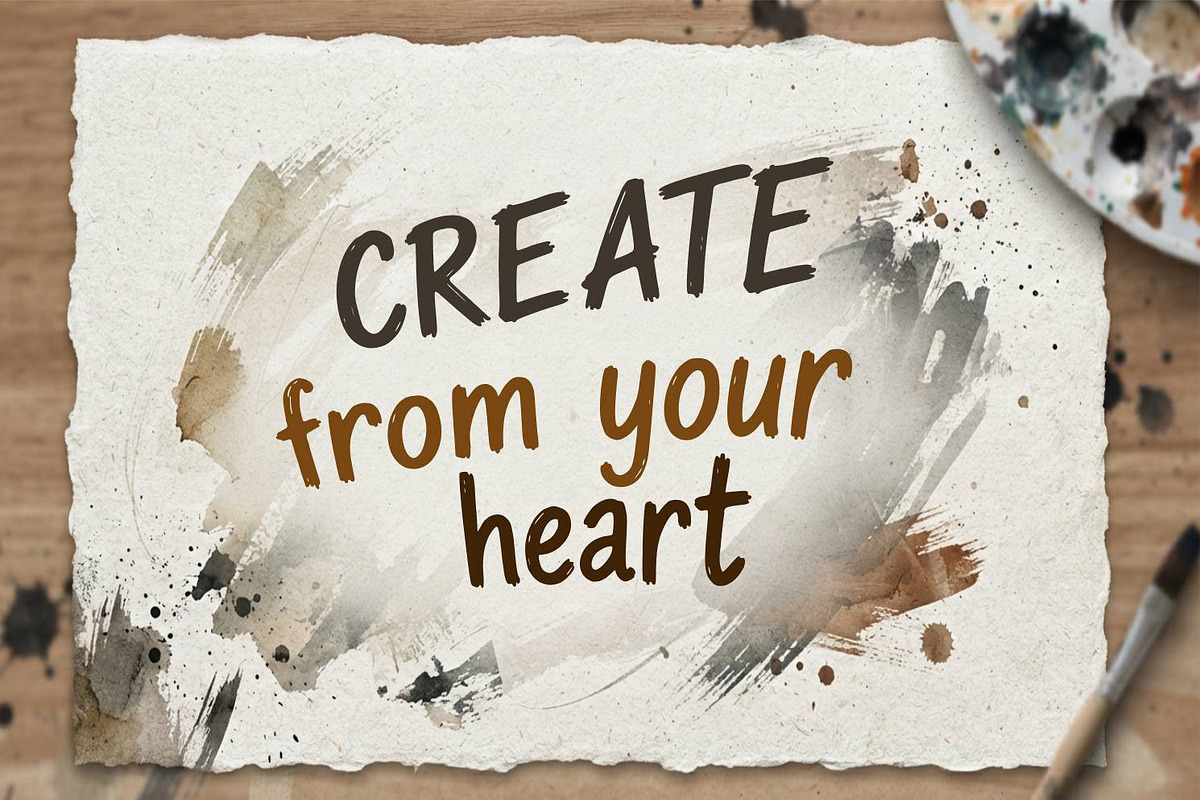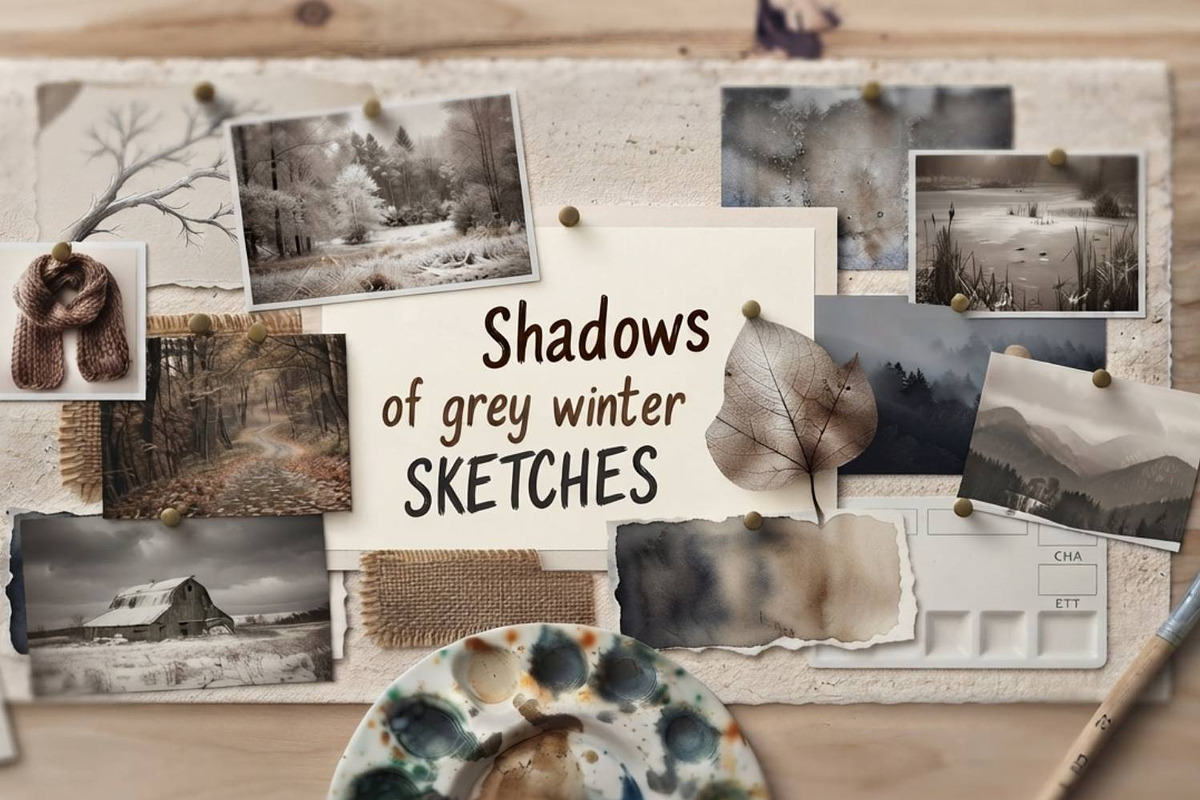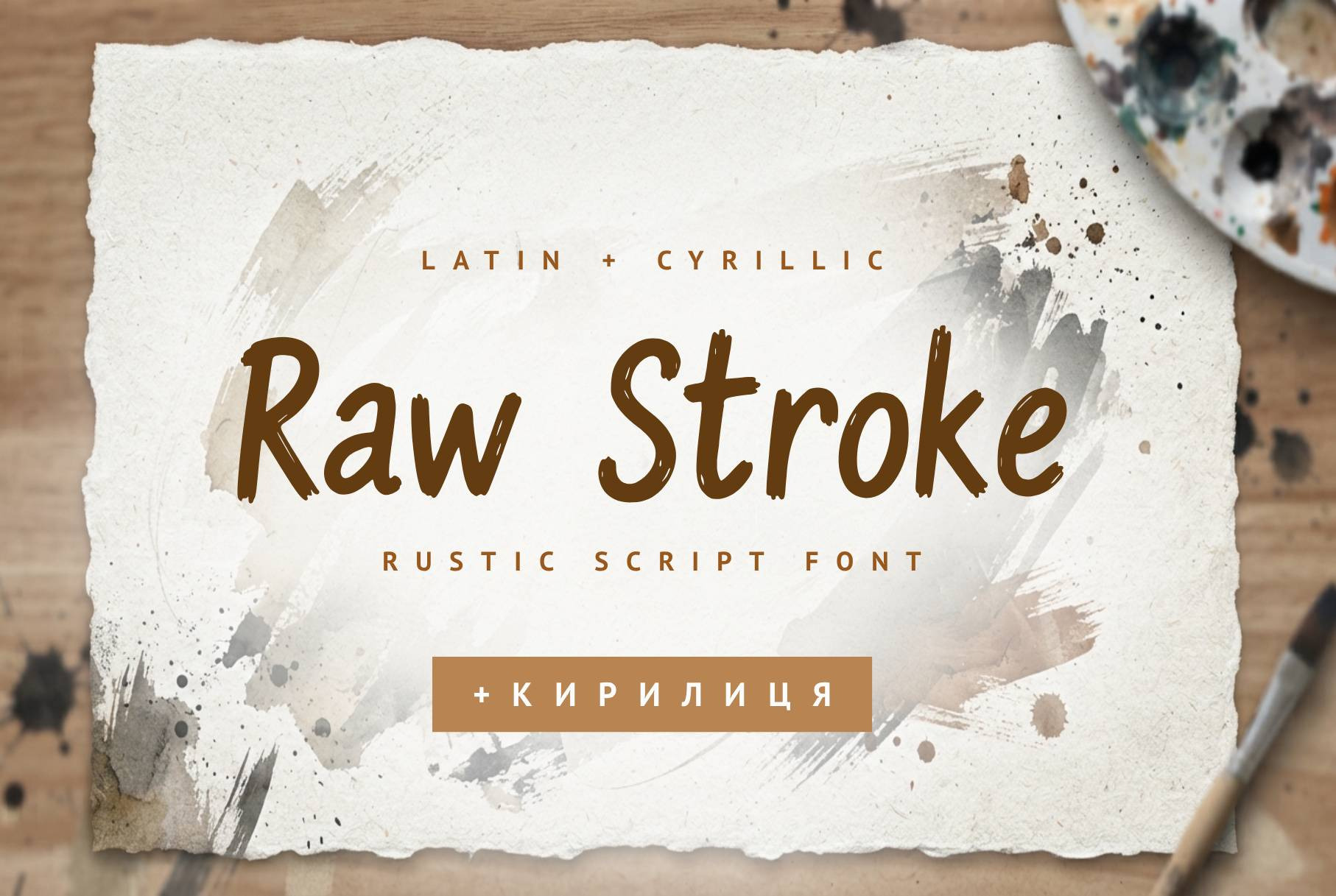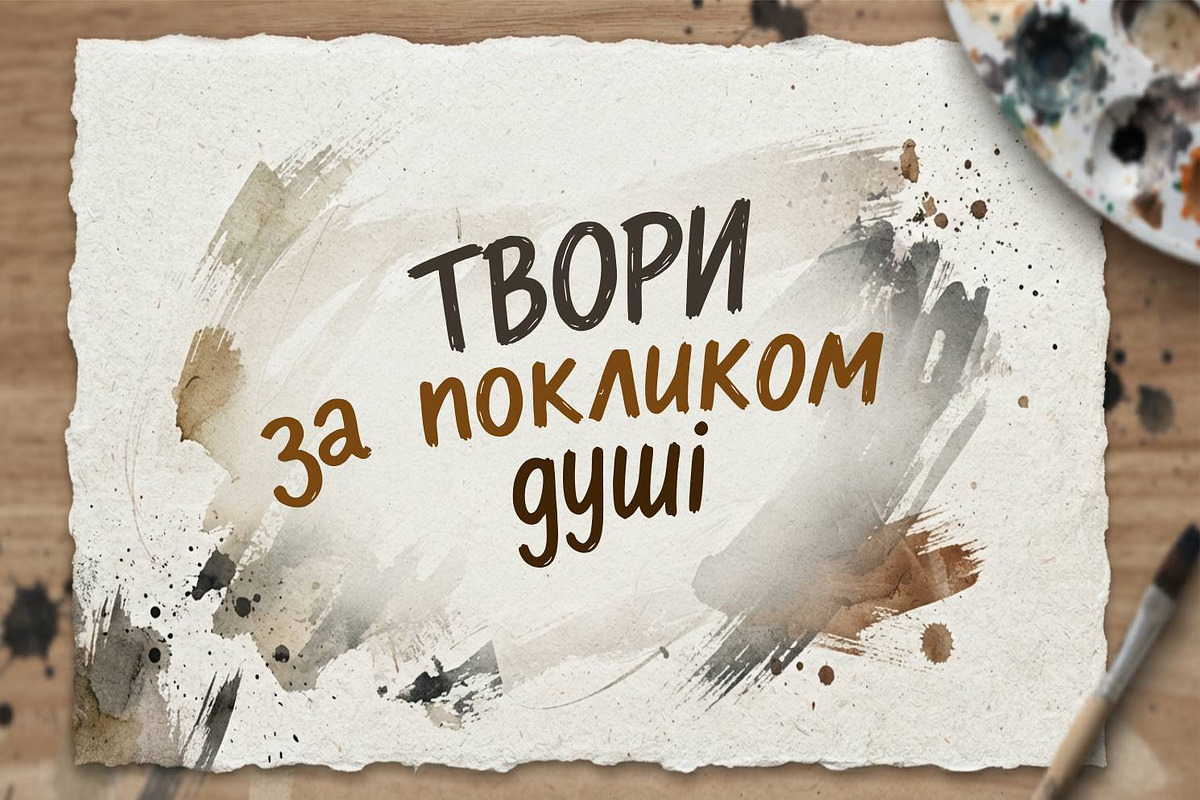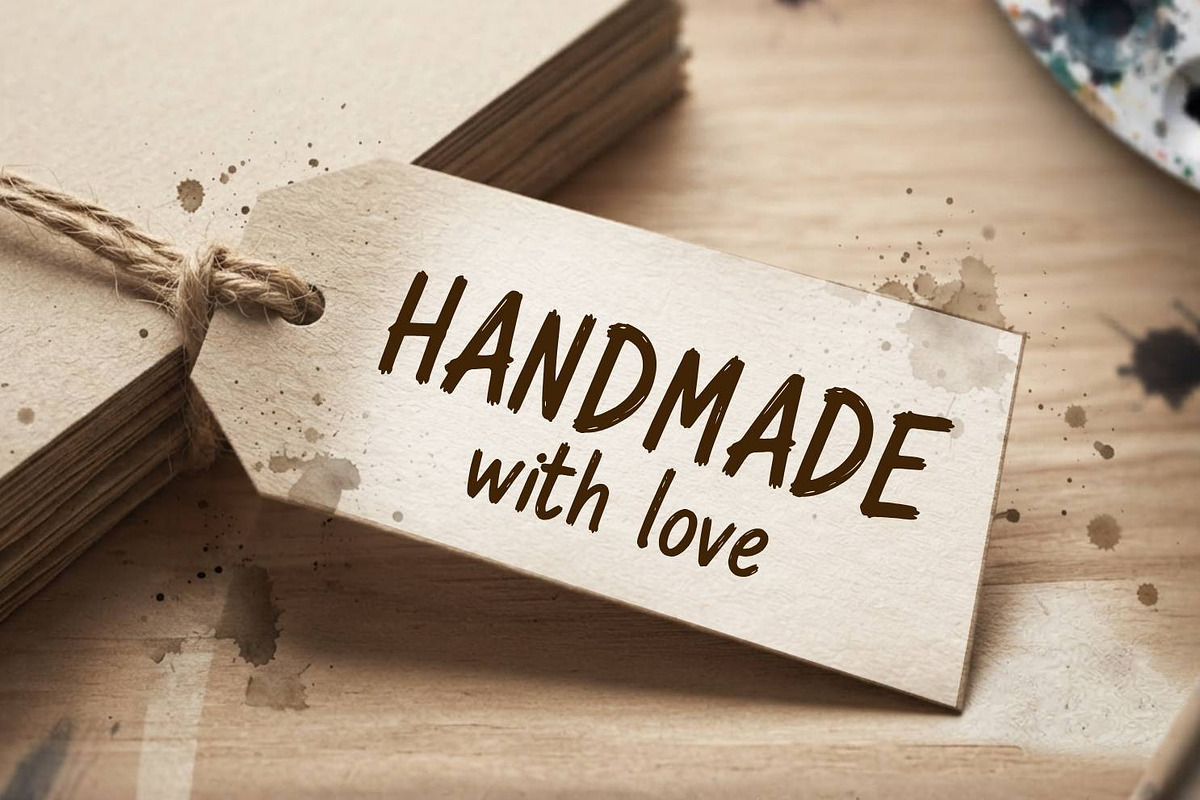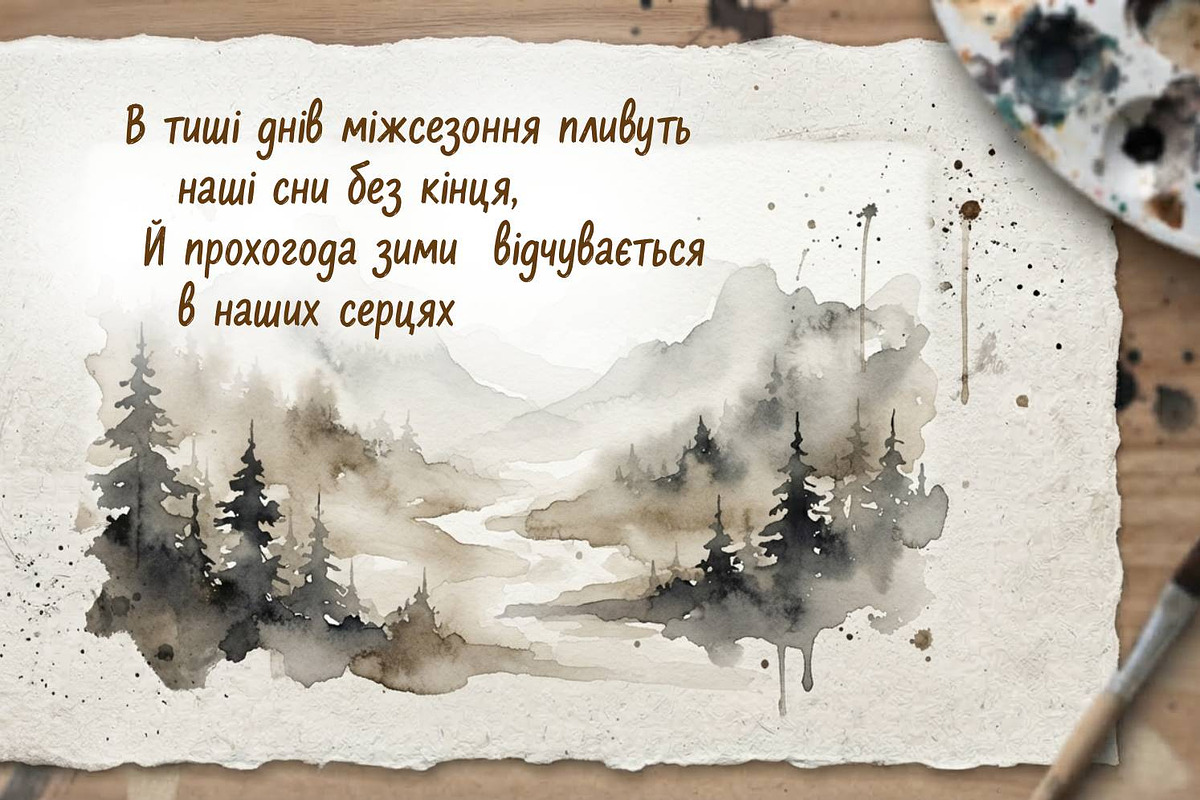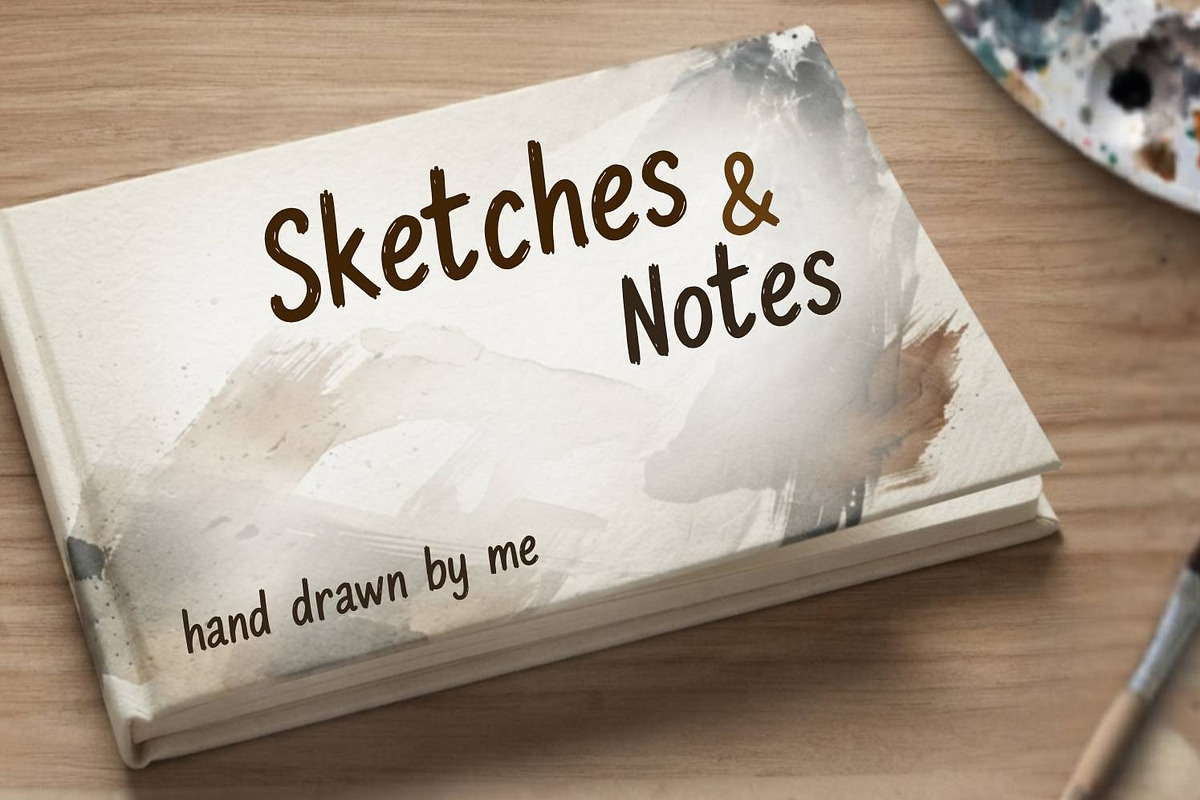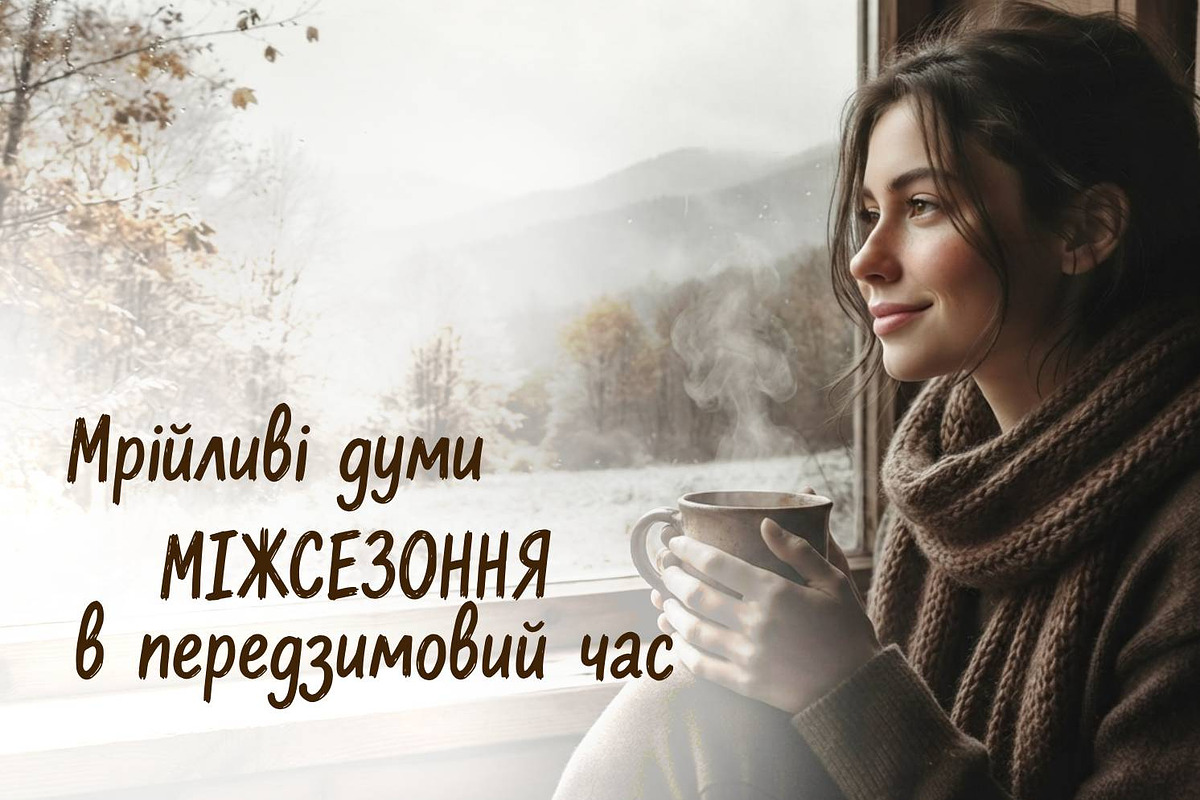
Raw Stroke Cyrillic Font
Raw Stroke – Handcrafted Dry Brush Font
Meet Raw Stroke—a raw, expressive, and unapologetically bold handwritten font crafted with the untamed energy of a dry brush. Featuring rough, jagged edges and fierce, organic strokes, Raw Stroke brings authentic texture and a rebellious spirit to any design.
Whether you're working on edgy branding, dynamic streetwear apparel, high-impact packaging, or moody album art, this font cuts through the noise with a striking, handcrafted look.
What Makes It Special?
Authentic Dry Brush Texture: Every single glyph is packed with natural grit, sharp lines, and raw emotion, mimicking real ink dragged across textured paper.
Full Multilingual Support (82 Languages): Go global without limits! Raw Stroke includes complete Cyrillic support (Ukrainian, Russian, Belarusian, Bulgarian, and many regional languages) alongside an extensive Latin character set.
Versatile Creative Power: Perfect for logos, posters, book covers, social media quotes, merchandise, and bold editorial headlines.
Standard & Extended Characters: Uppercase, lowercase, numbers, punctuation.
Multilingual Support (82 languages):
Western & Central European: English, French, German, Spanish, Italian, Portuguese, Polish, Dutch, Swedish, Norwegian, Danish, Finnish, Icelandic, and more.
Cyrillic: Ukrainian, Russian, Belarusian, Bulgarian, Kazakh, Uzbek (Lat.), Turkmen (Lat.), and numerous regional/indigenous languages (Abaza, Adyghe, Avar, Agul, Buryat, Ingush, Kabardian, Karachay-Balkar, Kumyk, Lak, Lezgin, Mordovian, Nogai, Rutul, Tabasaran, Tuvinian, and others).
Give your projects an unforgettable, handcrafted edge with Raw Stroke.